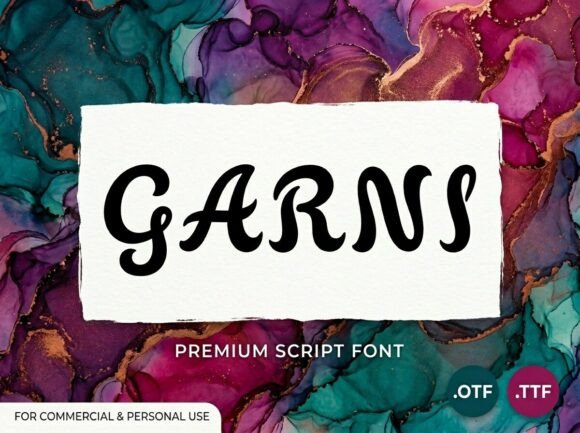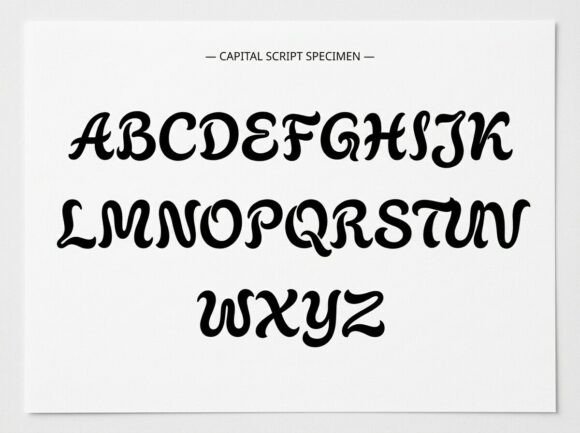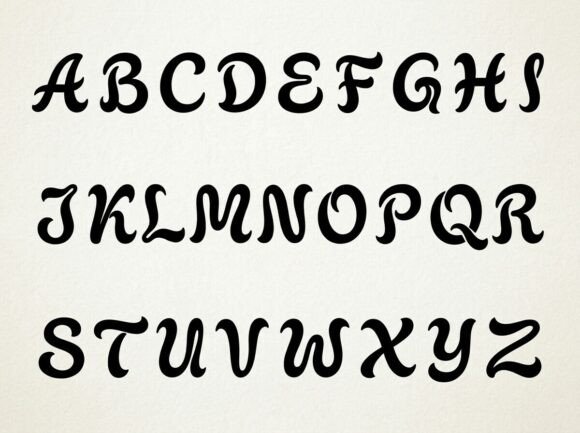
Introducing Garni Font: A Stunning Decorative Display Font
Are you tired of using the same old fonts for your designs? Do you want to add a touch of uniqueness and creativity to your projects? Look no further than Garni Font, a decorative display font designed to turn heads. With its artistic elements and strong visual personality, this font is perfect for creators who want to break away from the ordinary.
What is Garni Font?
Garni Font is a carefully crafted decorative display font that is sure to make a statement. Its unique design features artistic elements that give it a strong visual personality, making it perfect for bold headlines, artistic logos, and creative packaging. Whether you’re a designer, craftsperson, or DIY enthusiast, this font is versatile enough to meet your needs while maintaining a professional and polished finish.
Key Features of Garni Font
• Unique Artistic Elements: Garni Font features unique artistic elements that set it apart from other fonts. Its design is carefully crafted to give it a distinctive look that will make your projects stand out.
• Strong Visual Personality: This font has a strong visual personality that is sure to grab attention. Its bold and eye-catching design makes it perfect for headlines, logos, and other applications where you want to make a statement.
• Versatile: Despite its decorative nature, Garni Font is versatile enough to be used in a variety of applications, from bold headlines to artistic logos and creative packaging.
• Professional and Polished Finish: This font is designed to give your projects a professional and polished finish, making it perfect for designers, craftspersons, and DIY enthusiasts.
IMPORTANT NOTE BEFORE PURCHASE: Garni Font is an ALL-CAPS (Uppercase Only) display typeface. It does not include lowercase letters. It is specifically designed for high-impact headlines, logos, and decorative initials where every letter is a work of art.
Use Cases for Garni Font
Garni Font is perfect for a variety of applications, including:
• Headlines and Titles: Use Garni Font to create bold and eye-catching headlines and titles for your designs.
• Logos and Branding: This font is perfect for creating unique and memorable logos and branding elements.
• Creative Packaging: Use Garni Font to add a touch of creativity and uniqueness to your packaging designs.
• Signage and Displays: This font is perfect for creating eye-catching signage and displays that will grab attention.
Tips for Using Garni Font
Here are a few tips for using Garni Font:
• Use it sparingly: Because Garni Font is a decorative font, it’s best to use it sparingly to avoid overwhelming your design.
• Pair it with a simple font: Pair Garni Font with a simple font to create contrast and make your design more readable.
• Experiment with colors and textures: Don’t be afraid to experiment with different colors and textures to add depth and interest to your design.
Garni Font is a stunning decorative display font that is sure to add a touch of uniqueness and creativity to your designs. With its artistic elements and strong visual personality, this font is perfect for creators who want to break away from the ordinary. Whether you’re a designer, craftsperson, or DIY enthusiast, Garni Font is a versatile and professional font that is sure to meet your needs.